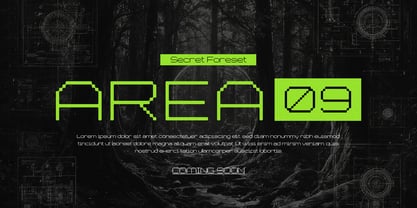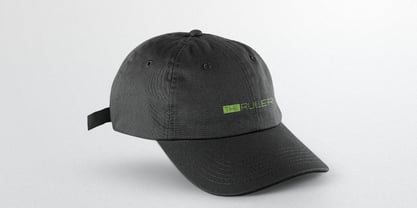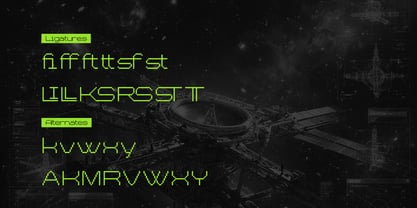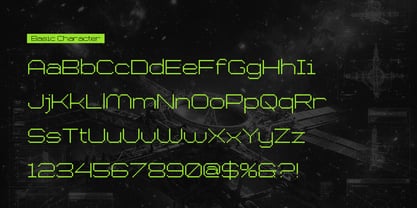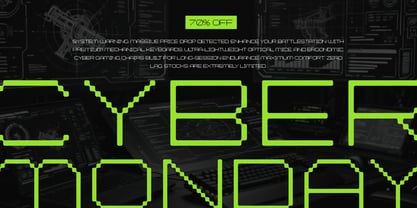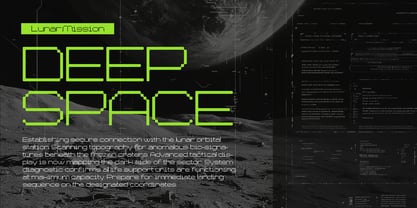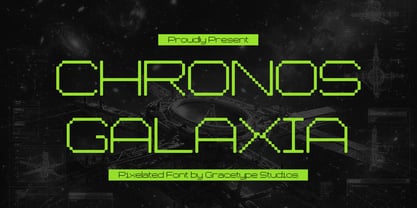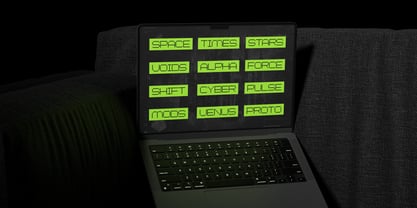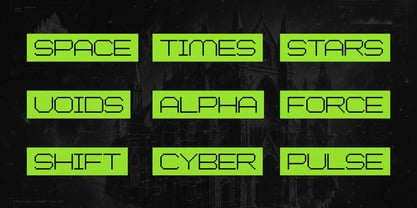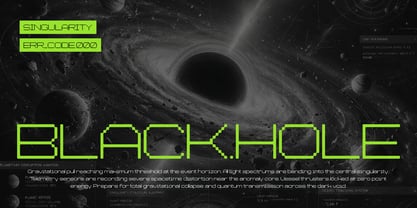
Chronos Galaxia
by Tini Fitriani
Chronos Galaxia | Pixelated Font, from Gracetypestudio, suitable for any projects such as: logos, branding projects, homeware designs, product packaging, mugs, quotes, posters, shopping bags, t-shirts, book covers, name card, invitation cards, greeting cards, label, photography, watermark, special events, and all your other lovely projects that need a Pixelated taste.